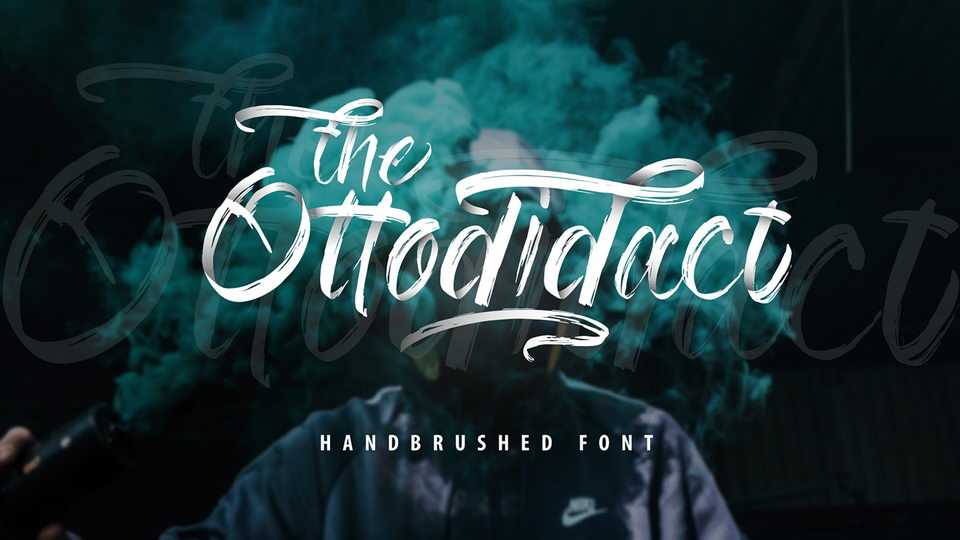
Download The Ottodidact font, a strong handwritten typeface with a high dry brush texture. The Ottodidact has been designed to fit a wide range of projects from urban style to classic branding